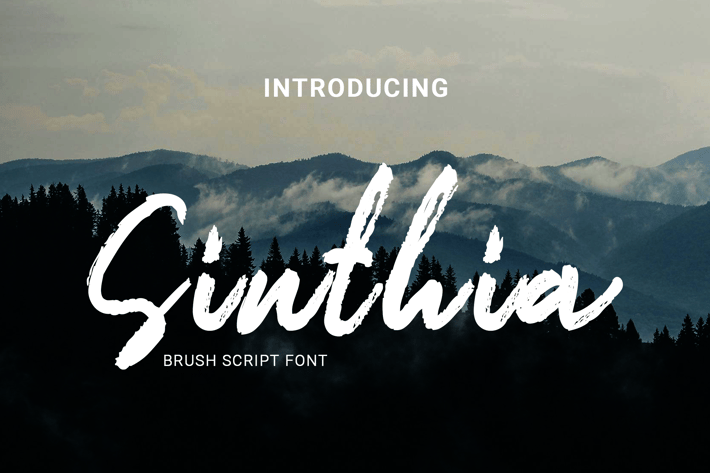
Sinthia - Brush Script Font
Eklip Studio offers you one of the best stylish Brush Script Font products. Ideal for logos, headers, titles, prints, and various other creative possibilities.
Achieve extraordinary typography and lettering results with this Sinthia - Brush Script Font